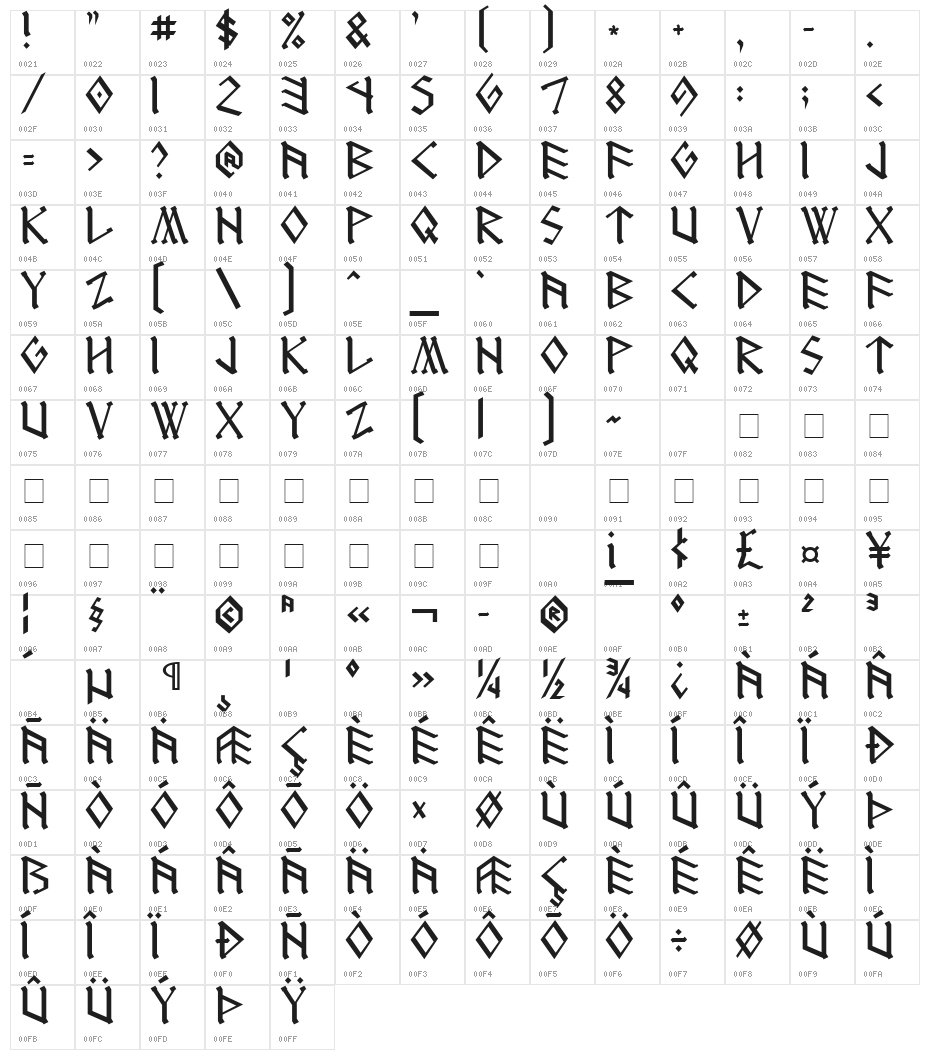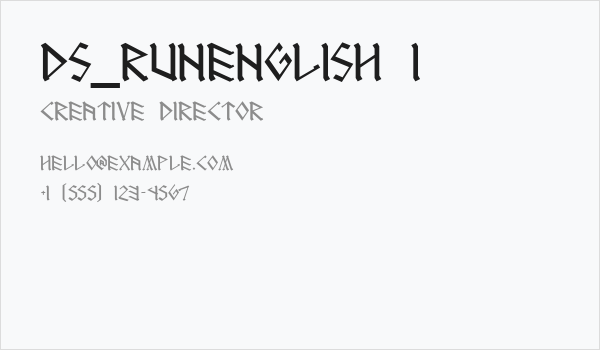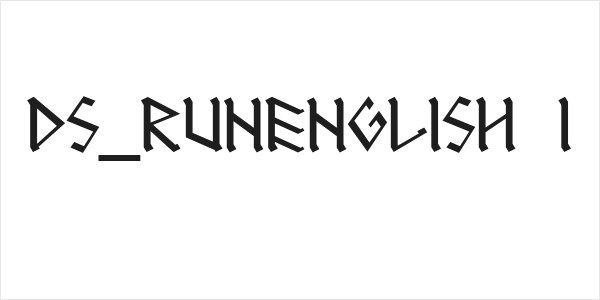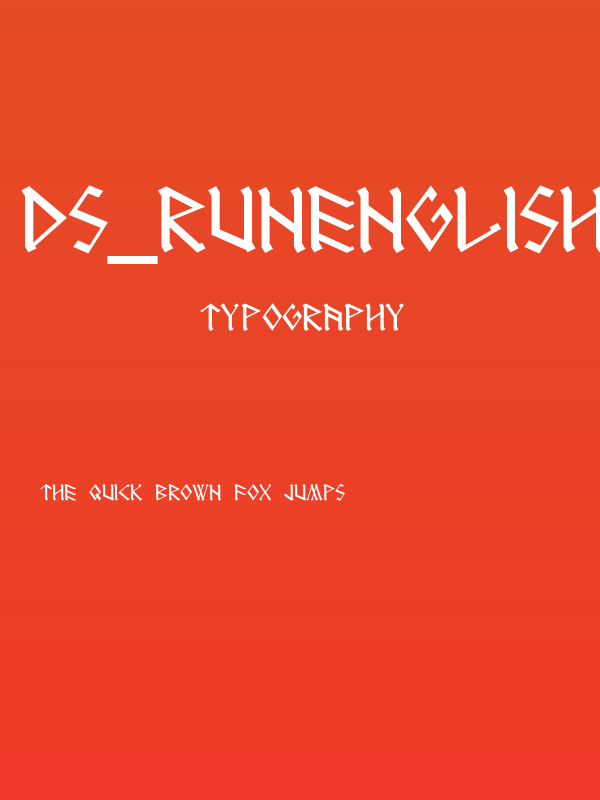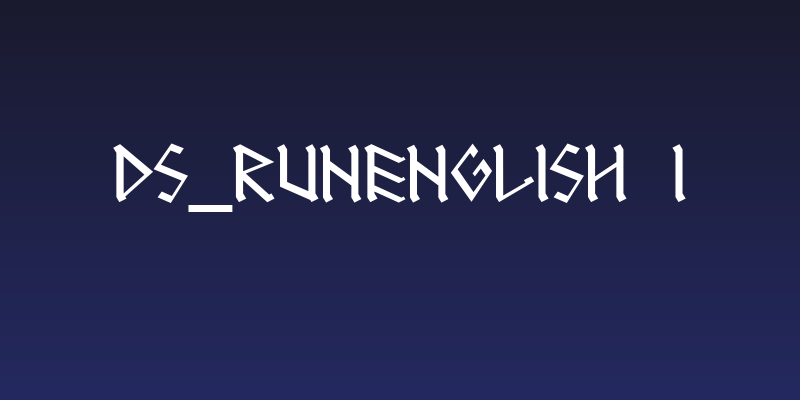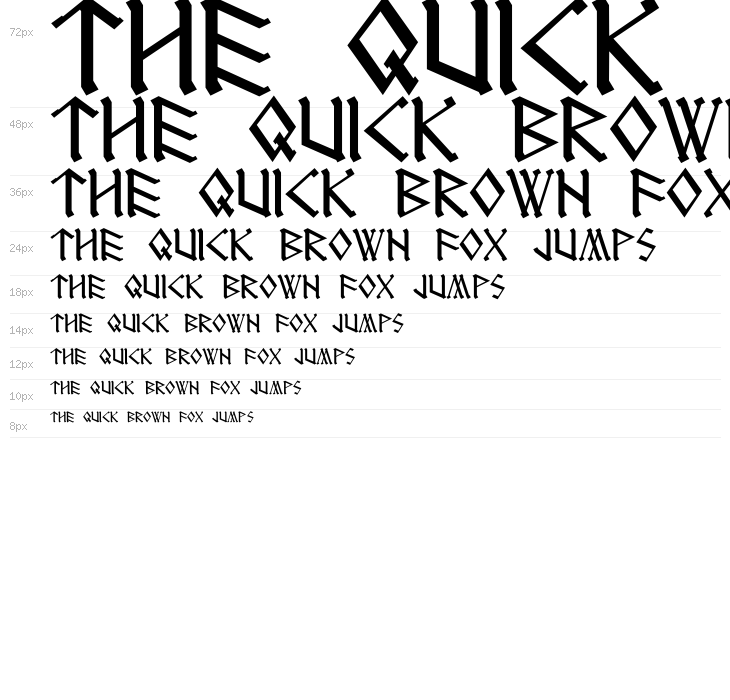
DS_RUNEnglish 1 Font
DS_RUNEnglish 1 Description
This font features a bold and angular design, reminiscent of medieval or gothic styles. The characters are sharply defined with a strong emphasis on vertical and diagonal strokes, creating a sense of strength and authority. The uppercase letters are particularly striking, with a unique geometric flair that adds a modern twist to the traditional blackletter style. The numbers and special characters maintain this bold aesthetic, ensuring consistency across all elements. This font's distinct appearance makes it ideal for projects that require a dramatic and impactful visual presence.
| Overall Style | Modern Gothic |
| Proposed Projects | Ideal for branding, posters, album covers, and any design requiring a strong, dramatic impact. |